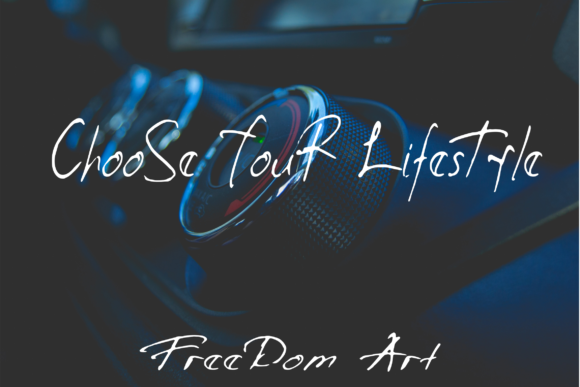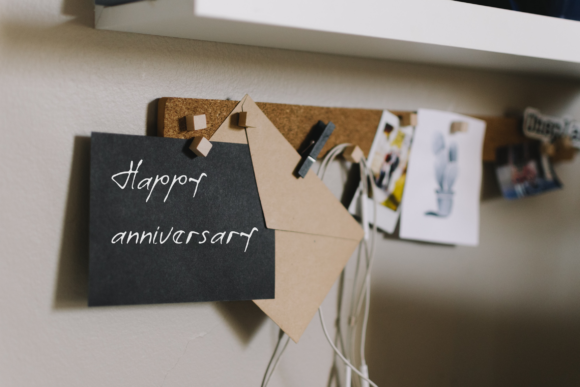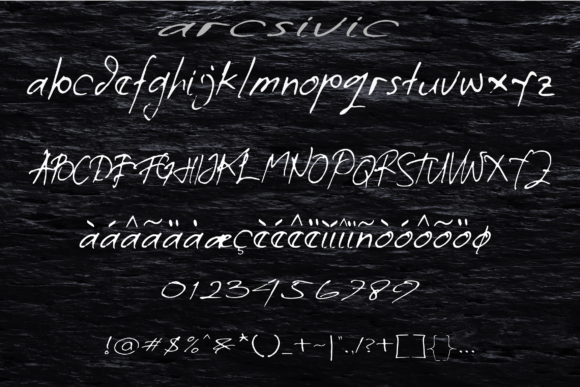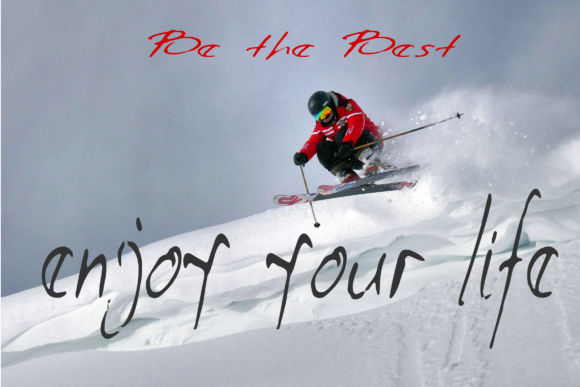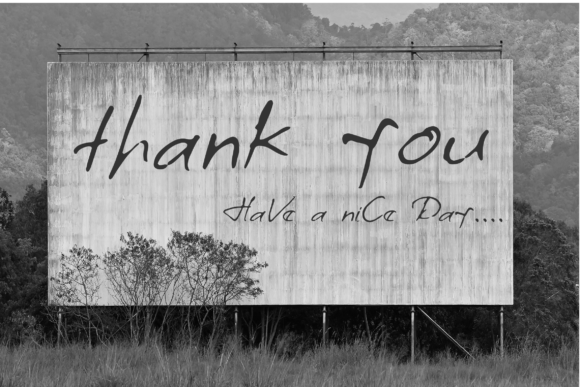
The Designer’s Delight: Arcsivic Font
I still remember the time I was working on a project for a children’s book, and I was struggling to find the perfect font. The client wanted something fun, playful, and eye-catching, but I just couldn’t seem to find the right fit. That’s when I stumbled upon Arcsivic Font, and it completely transformed my design. In this article, I’ll share my experience with Arcsivic, its features, and how to make the most of it in your designs.
An Honest Review of Arcsivic Font
What I Love About Arcsivic ✨
- ✅ Unique and Playful Design: Arcsivic’s curved lines and geometric shapes make it a standout font that’s perfect for attention-grabbing headlines and titles.
- ✅ Highly Versatile: Whether you’re designing a logo, brochure, or social media post, Arcsivic adapts seamlessly to different contexts and styles.
- ✅ Easy to Read: Despite its creative design, Arcsivic remains clear and legible, even at smaller font sizes.
- ⚠️ Limited Use in Body Text: While Arcsivic shines in headlines and titles, it may not be the best choice for lengthy body text due to its playful nature.
- ⚠️ Glyph Limitations: Some users have reported that the font could benefit from more glyphs and special characters.
The Story Behind Arcsivic Font
Arcsivic was designed with the intention of creating a fun and playful display font that would bring joy to designers and their clients. The designer’s goal was to craft a font that would be both unique and versatile, suitable for a wide range of design projects.
| Font Name | Arcsivic Font |
| Author | WarejoW |
| What is Arcsivic Font best used for? | Arcsivic Font is ideal for headlines, titles, and short text passages where a playful and eye-catching design is desired. |
| Is Arcsivic Font suitable for body text? | While Arcsivic can be used for body text, it may not be the best choice due to its playful nature. It’s recommended to use it for headlines and titles. |